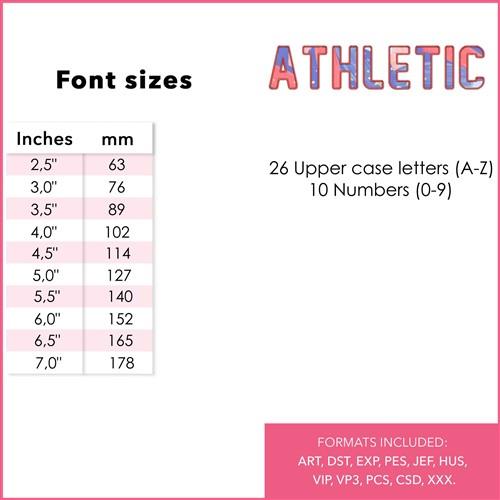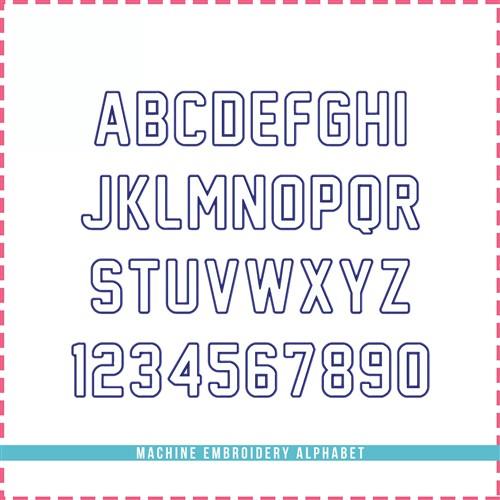
Maya Kreations is happy to present Athletic Applique Font machine embroidery font which has Bold athletic applique machine embroidery font, perfect for casual sportswear and accessories like jackets and caps. The vibrant red and blue tones add a playful touch. Available in PES, DST & 8 other formats. included. If you would like to view more embroidery fonts and alphabets please search our embroidery fonts page.